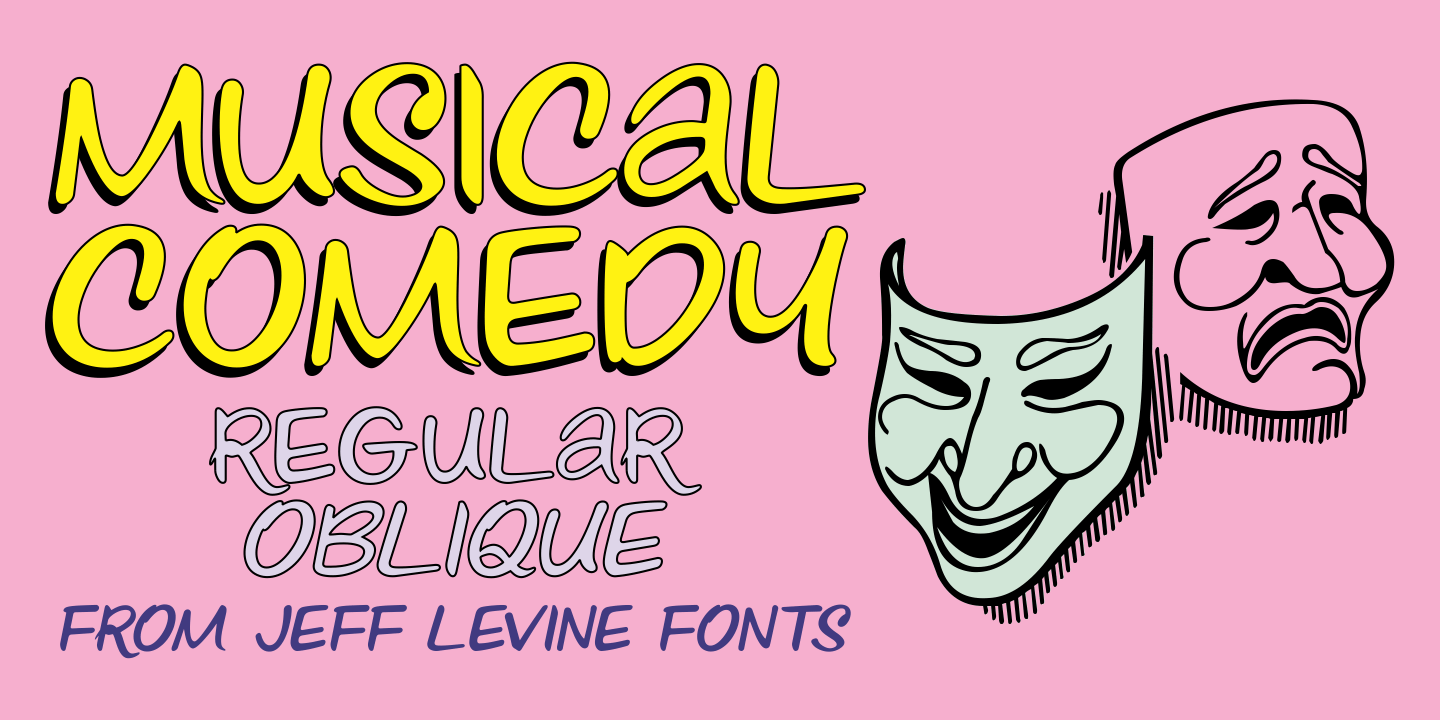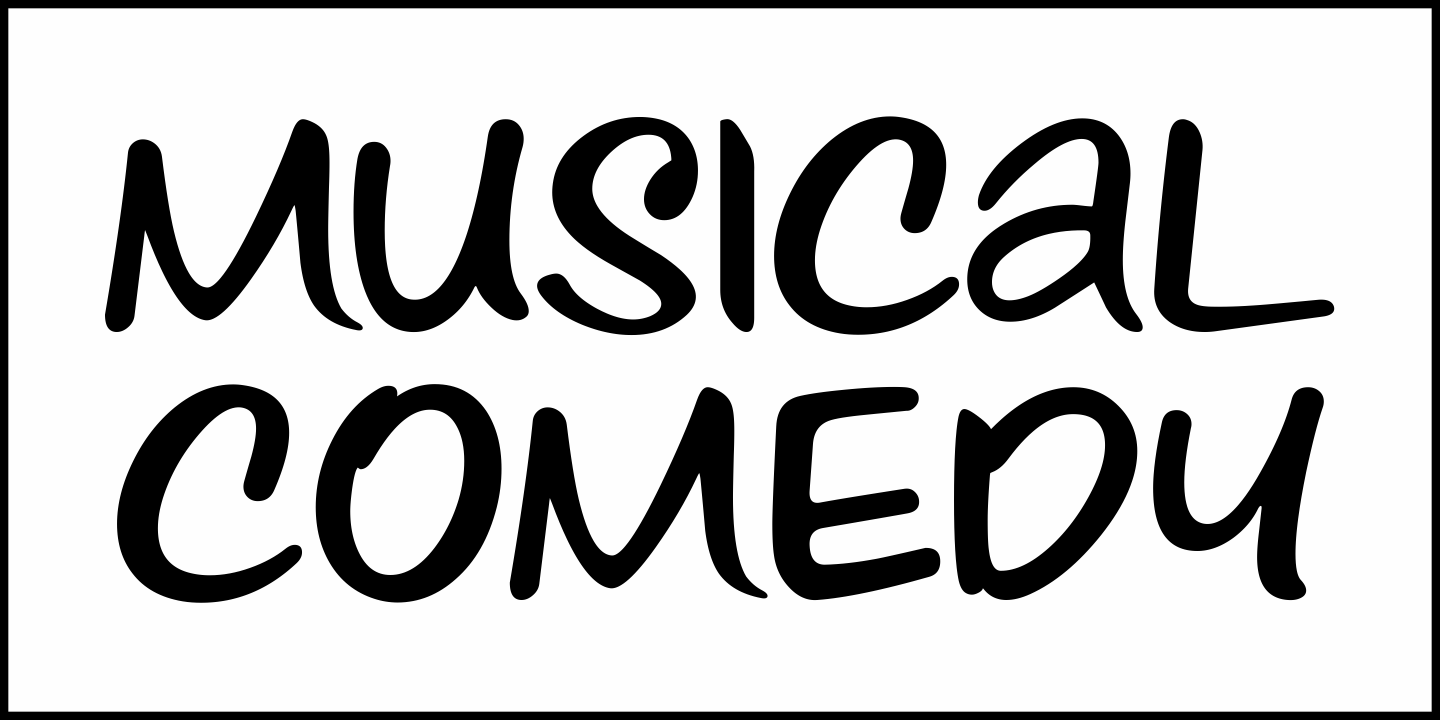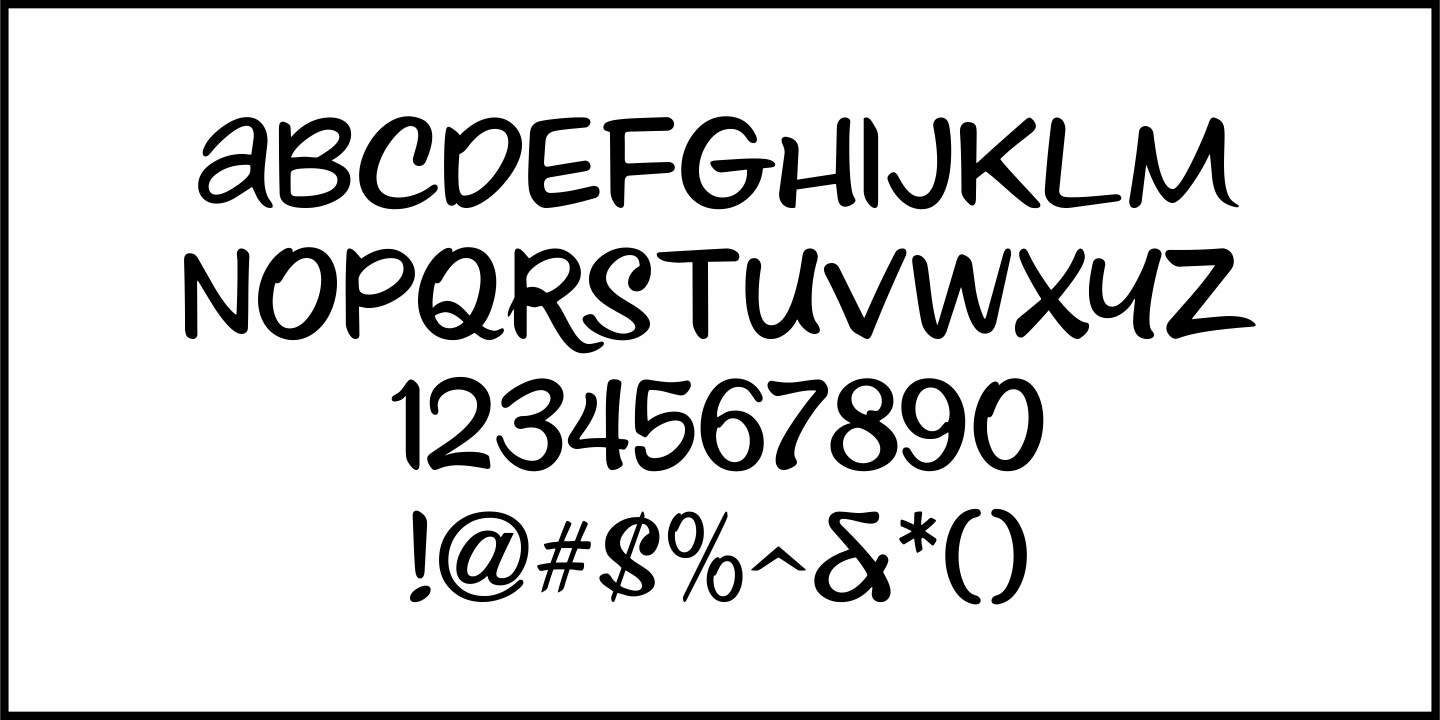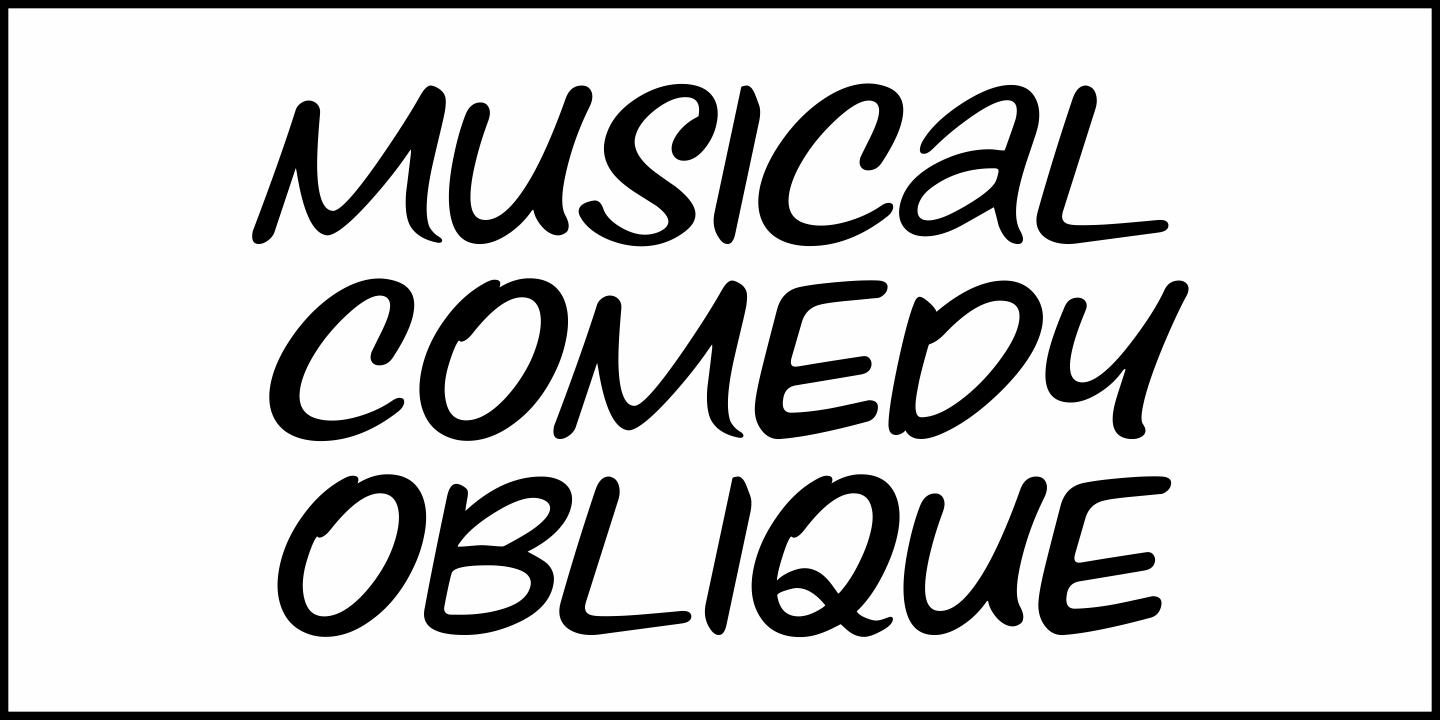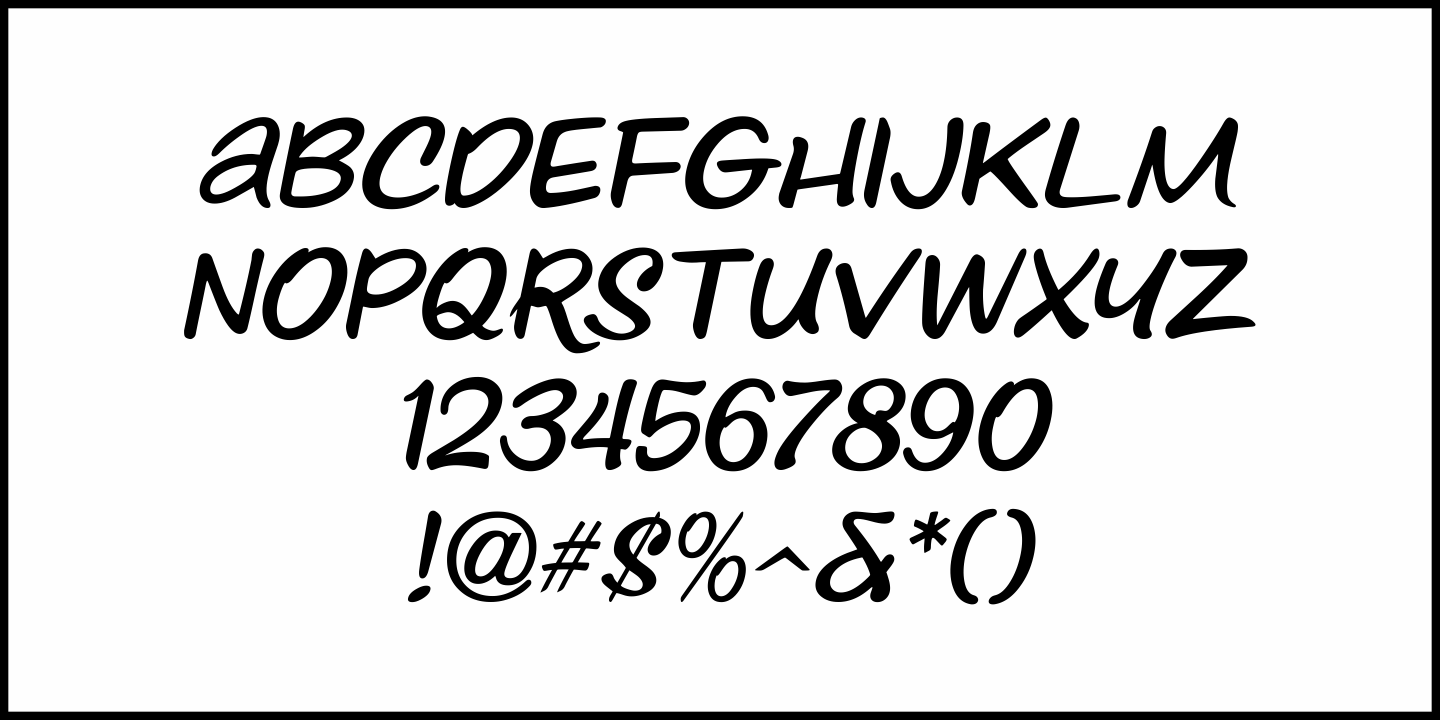
Musical Comedy
The hand lettered show card brush lettering in the trailer for the 1960 musical comedy “Bells are Ringing” (starring Dean Martin and Judy Holliday) inspired Musical Comedy JNL, which is available in both regular and oblique versions.